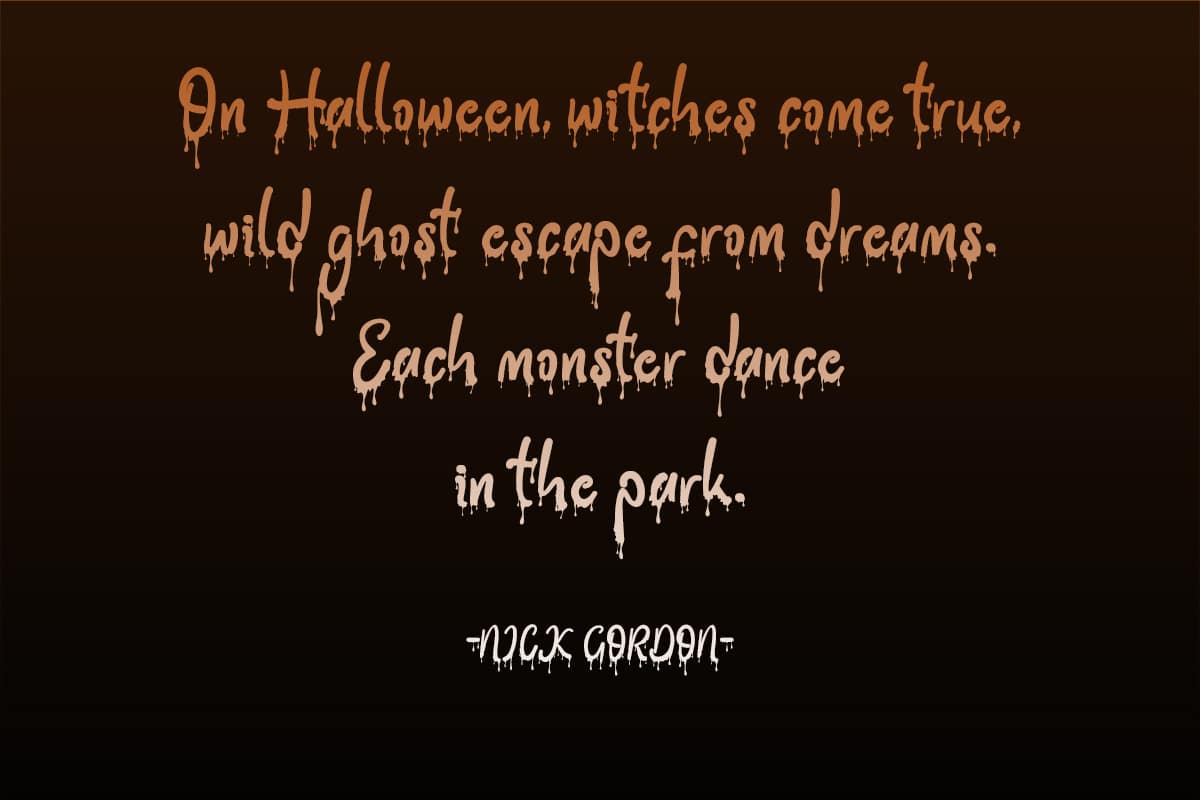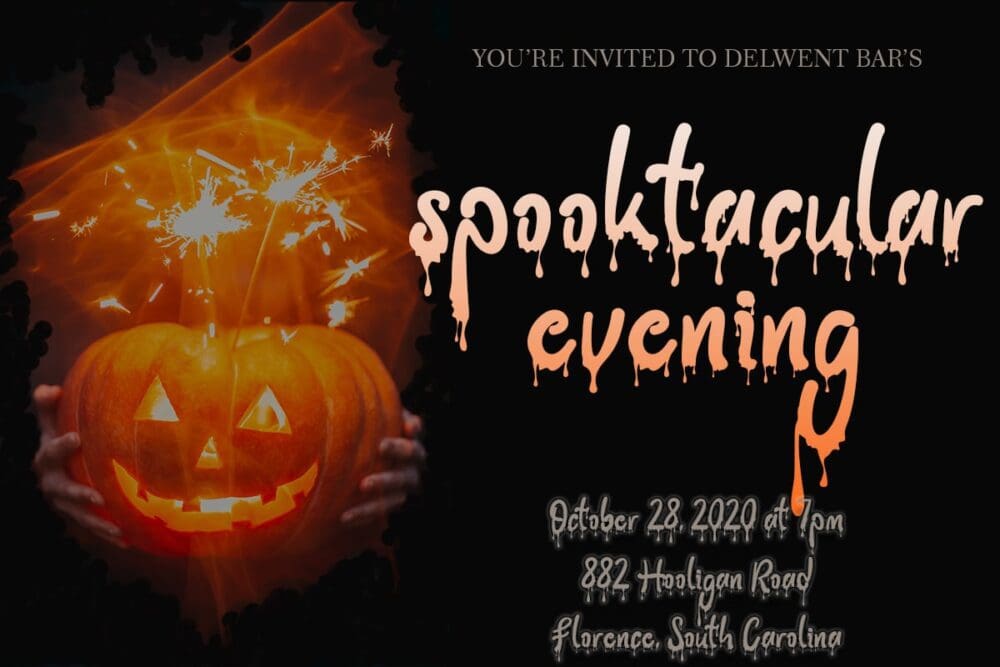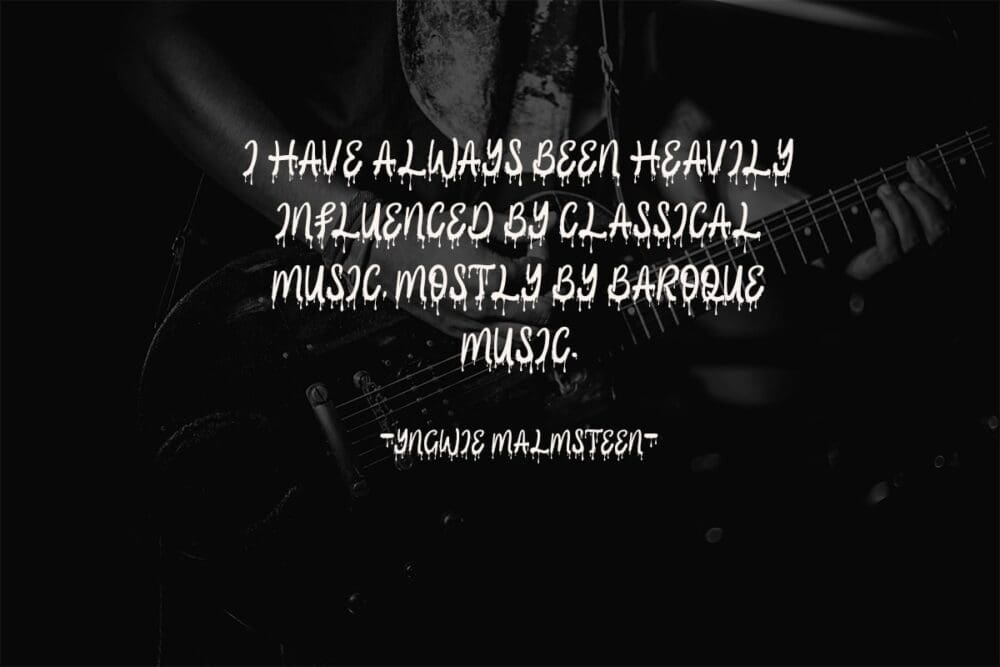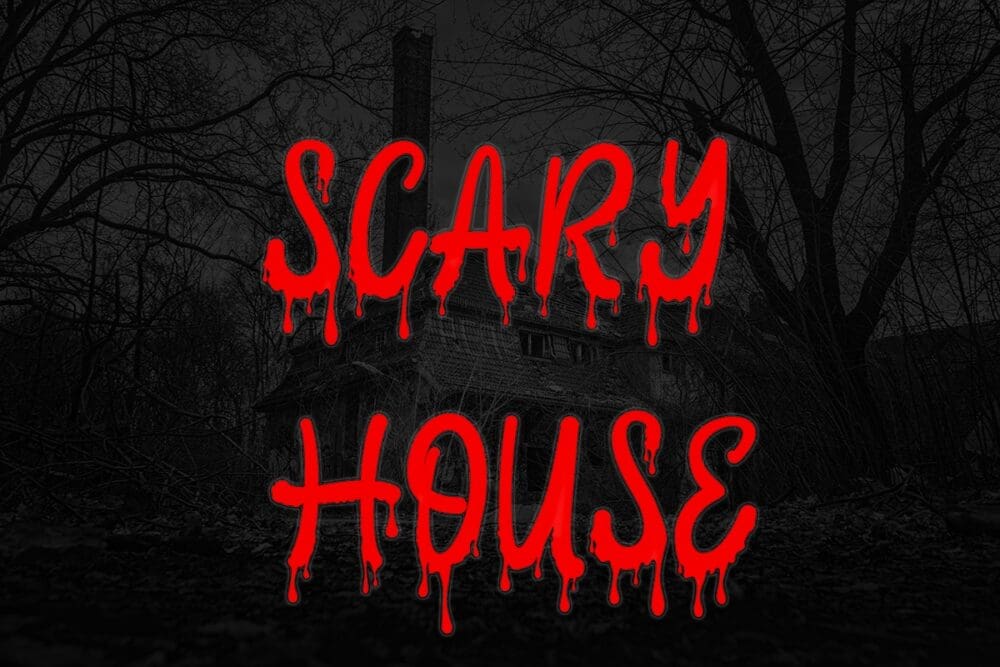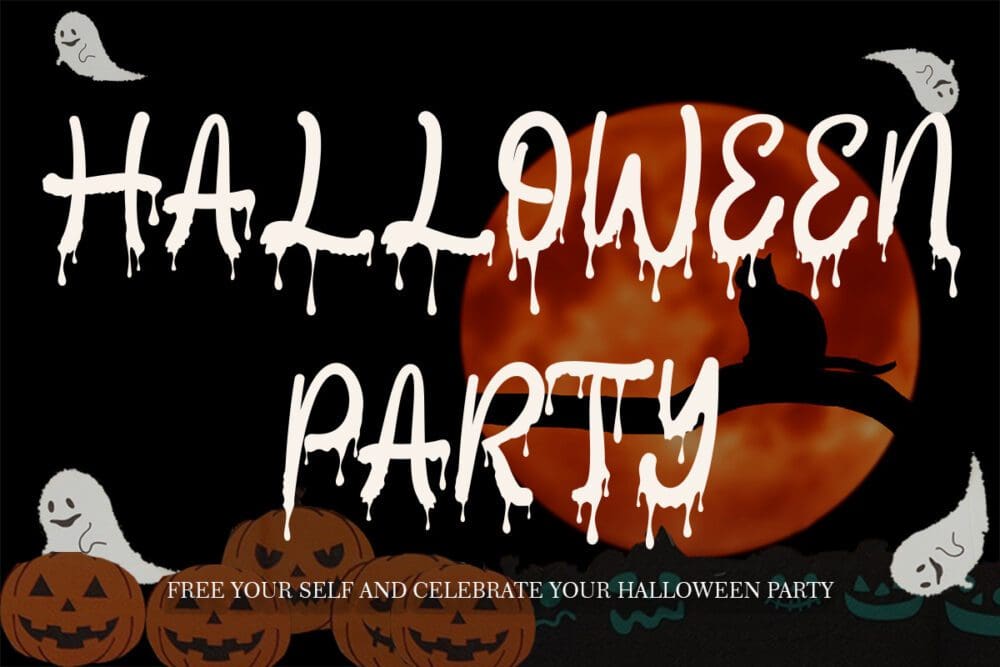
Halloween Party Font
Halloween Party Font embodies fun, quirkiness and authenticity. This enchanting handwritten font will turn any creative idea into a true standout.